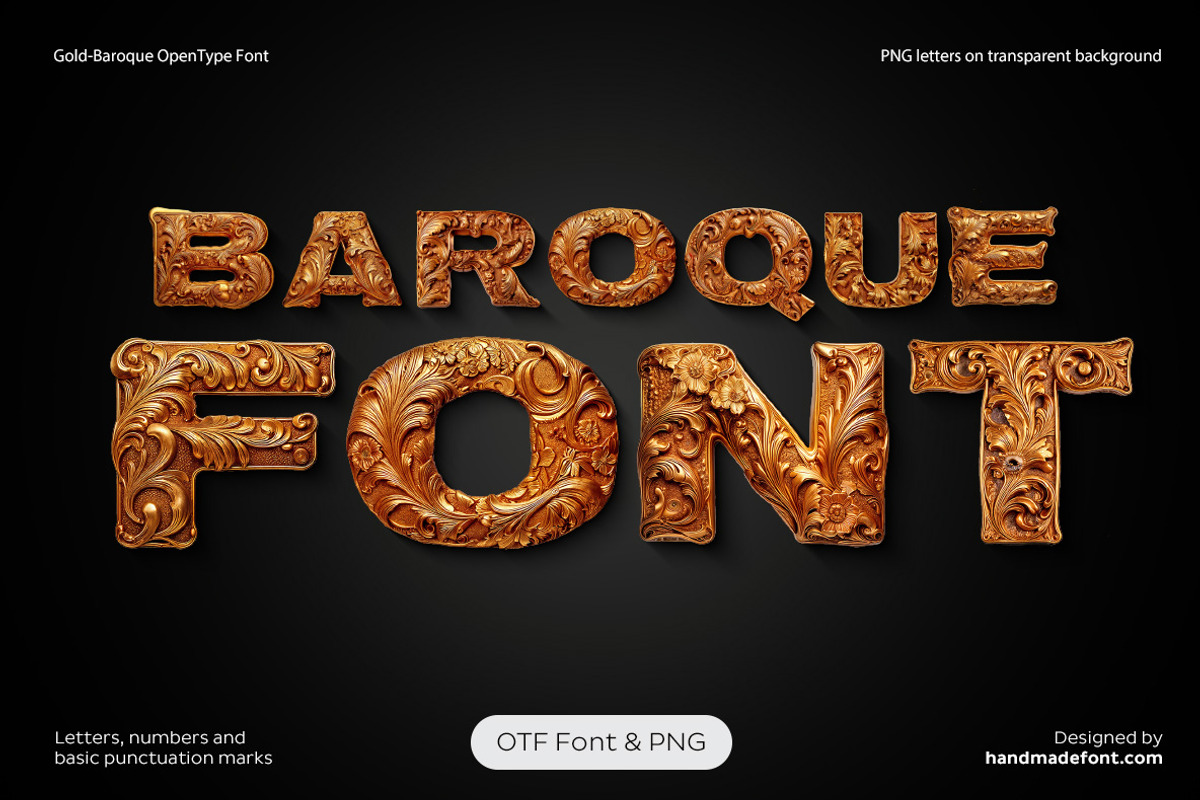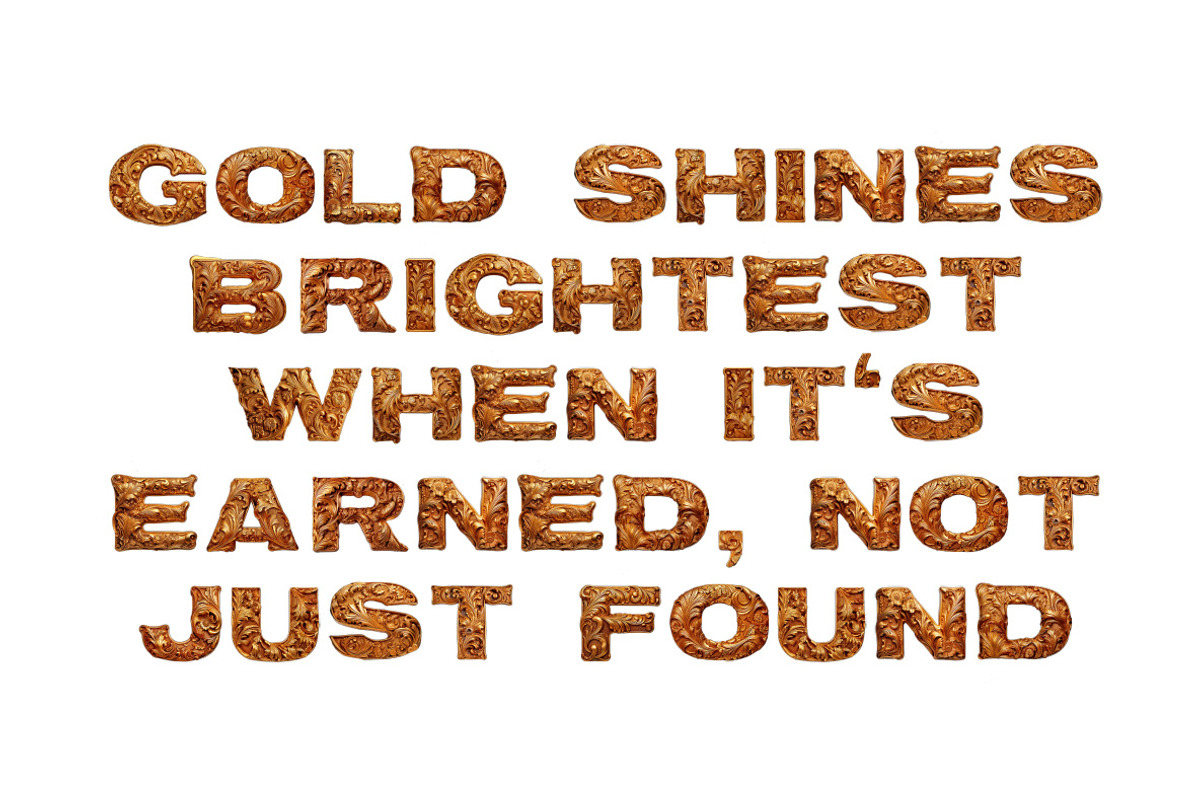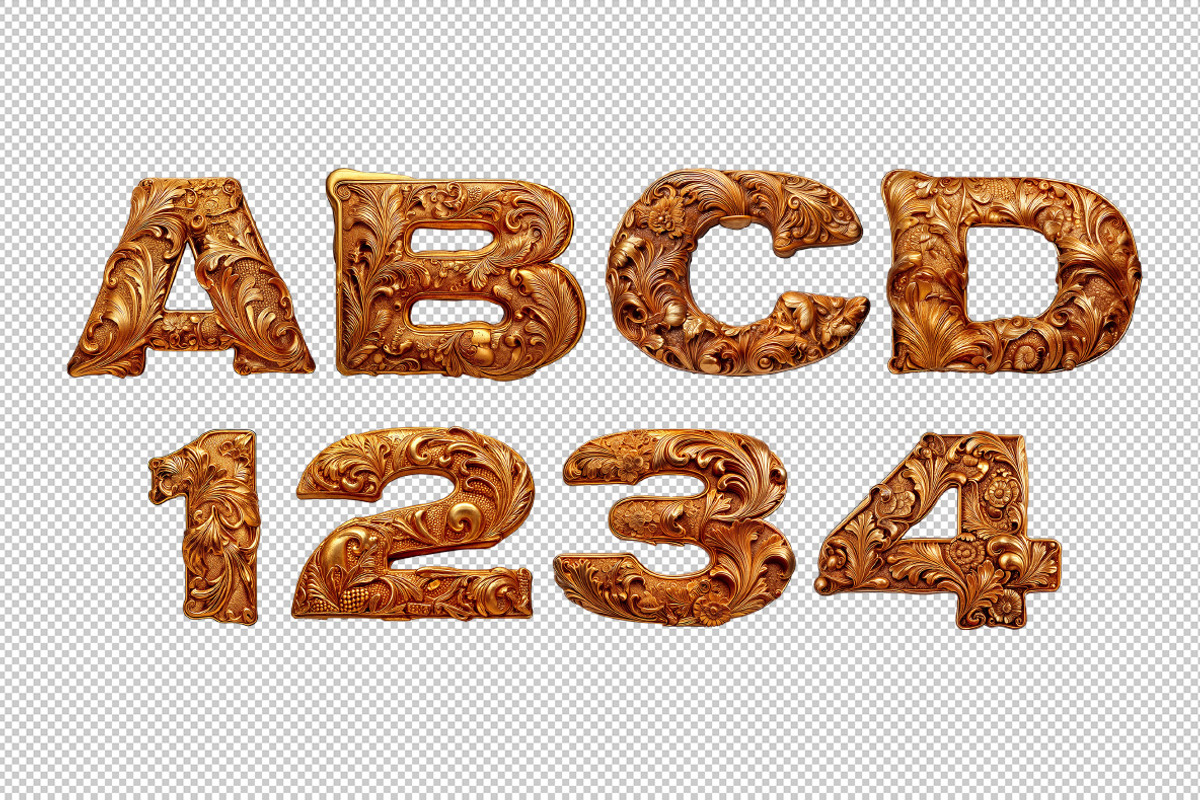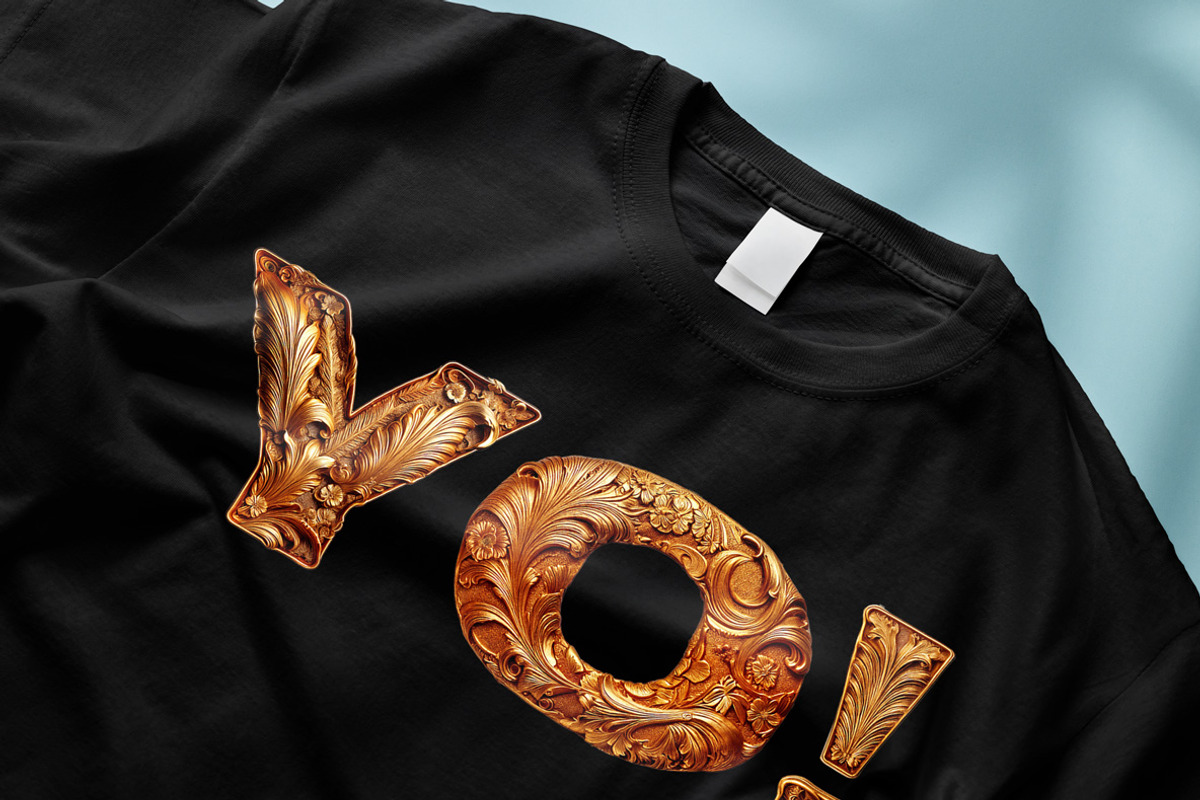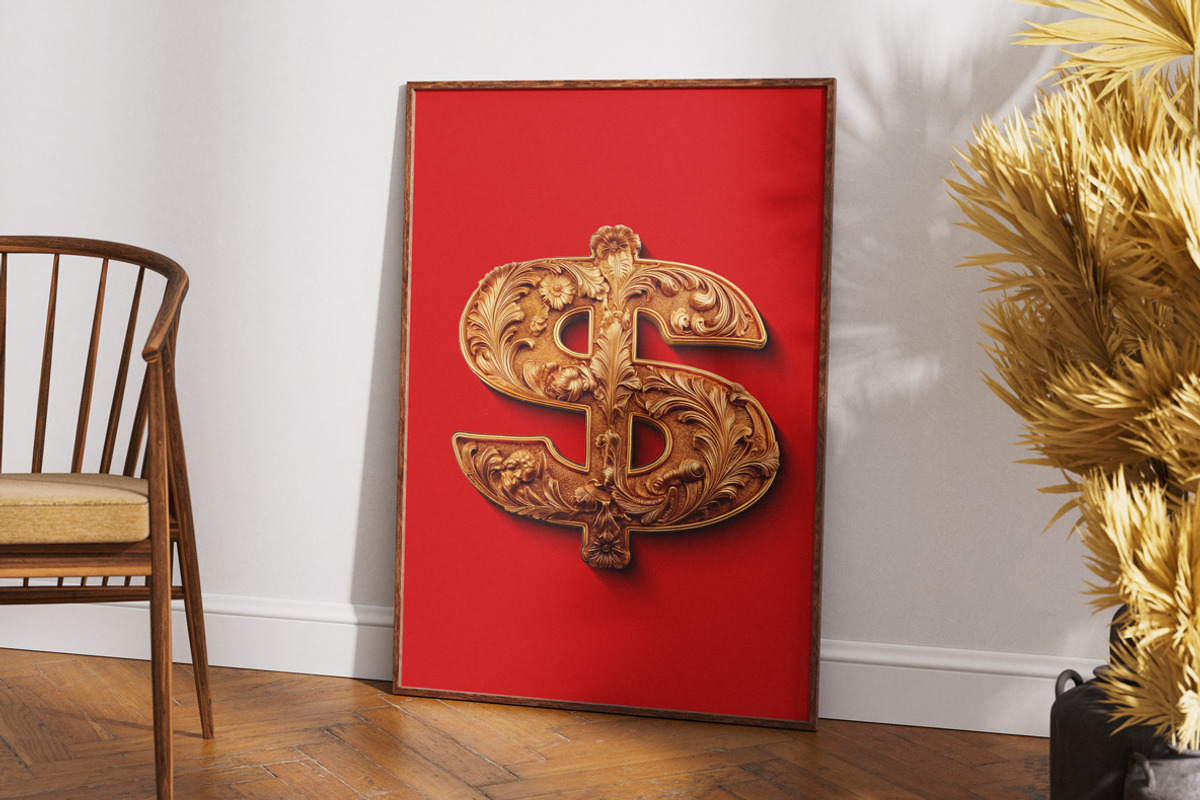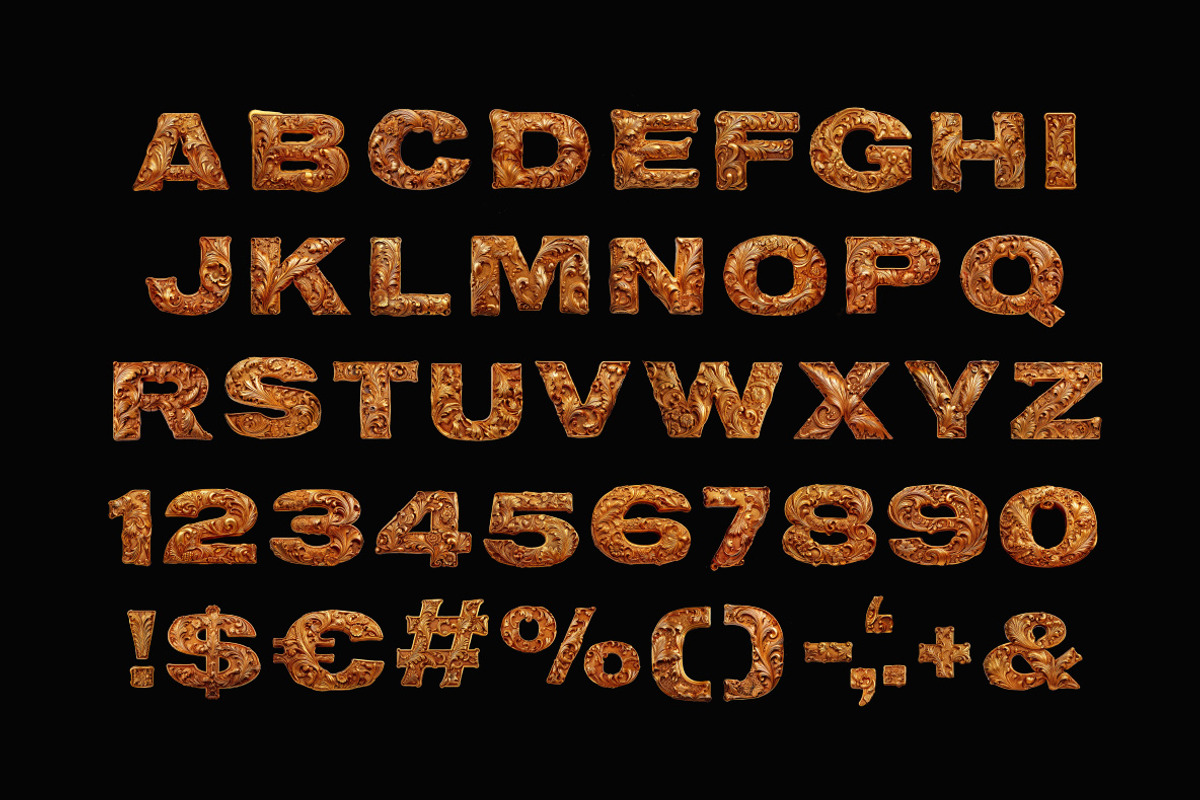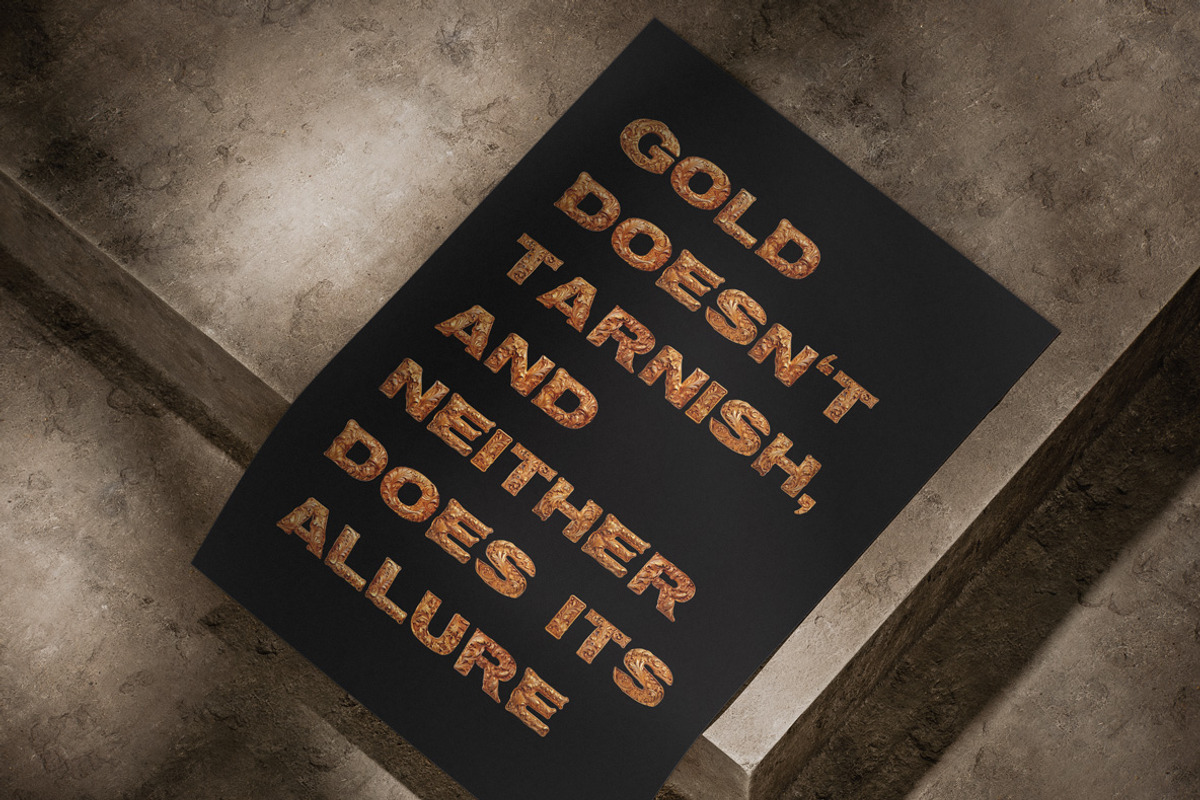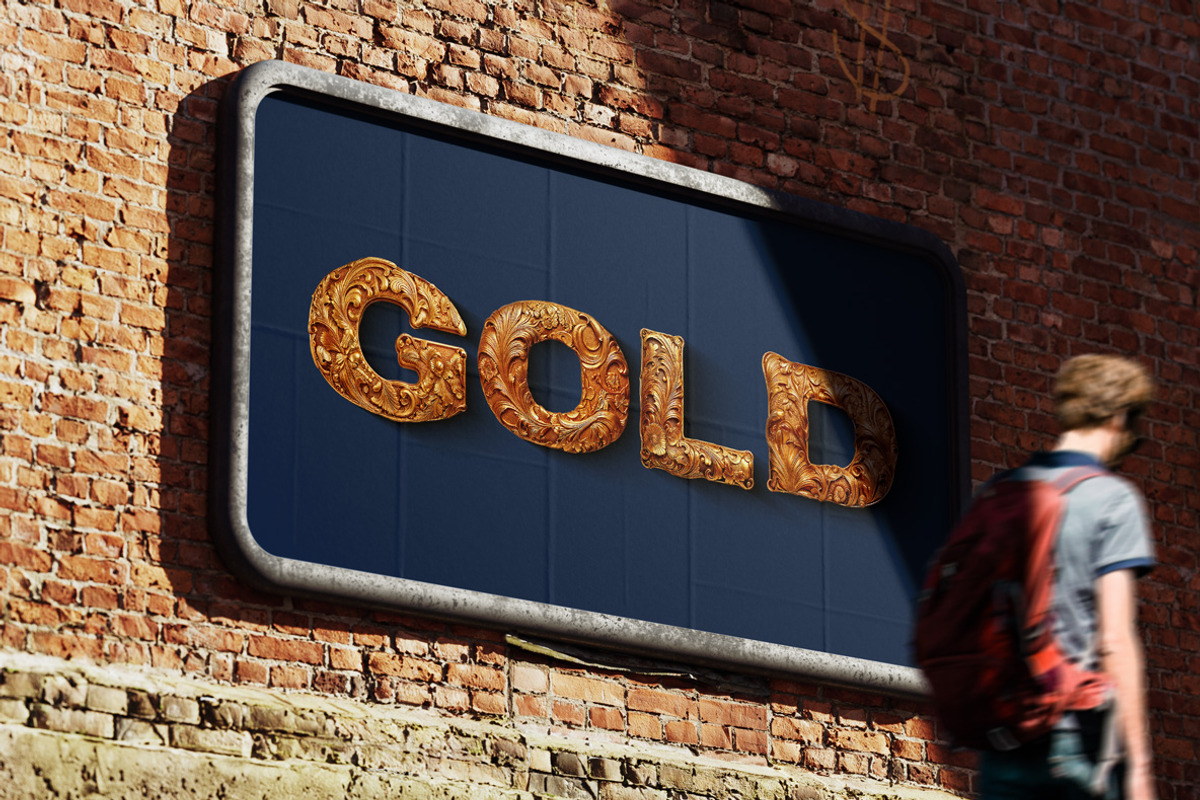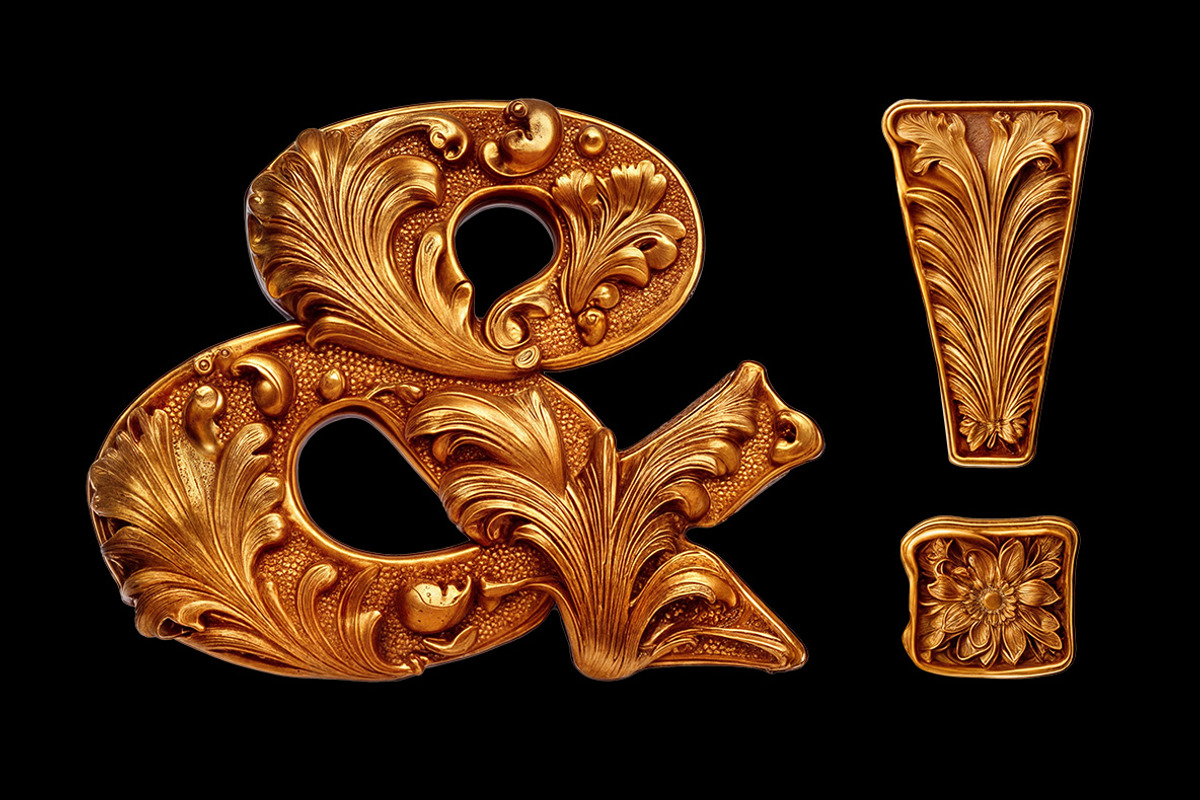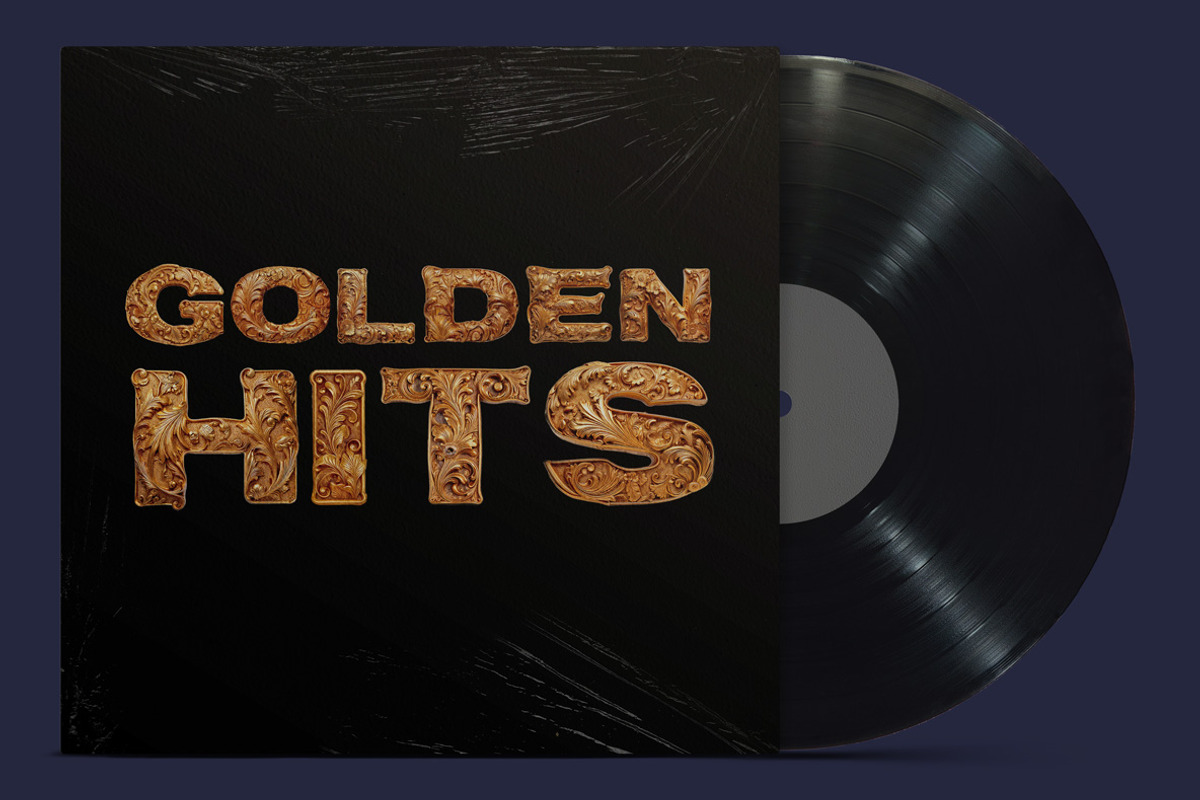
Gold Baroque Font
Elegance radiates from every letter of the Gold Baroque Font, a masterpiece of gold typography infused with Baroque-inspired artistry. Each character is adorned with intricate floral and ornamental patterns, featuring swirls, leaves, and delicate blossoms that evoke a sense of grandeur and luxury. The shimmering golden texture glistens with exquisite detail, as if each letter is a sculpted treasure. Scattered golden fragments enhance its dynamic appeal, adding a touch of motion and brilliance. This gold alphabet embodies opulence and sophistication, blending timeless Baroque aesthetics with contemporary artistry to create a visually stunning and unforgettable typography experience.